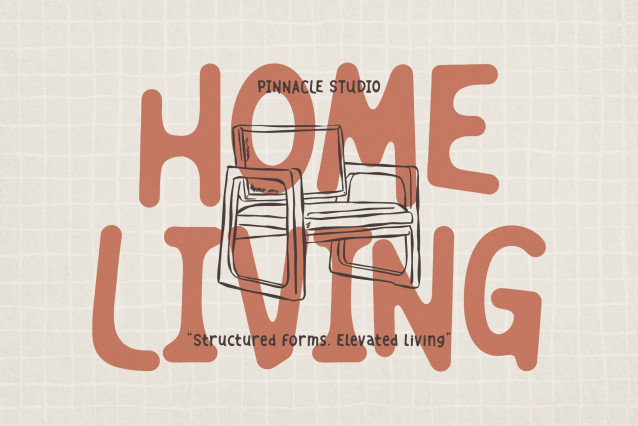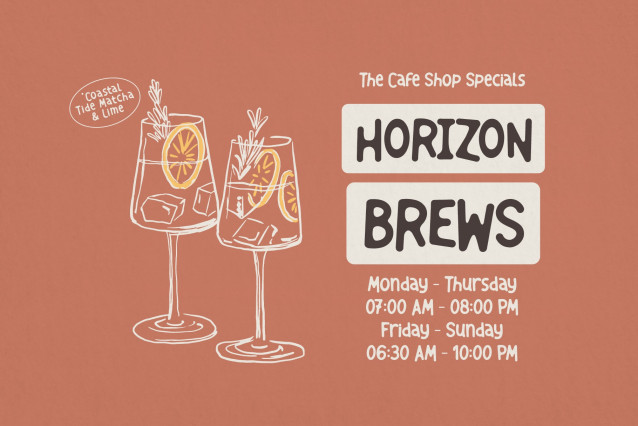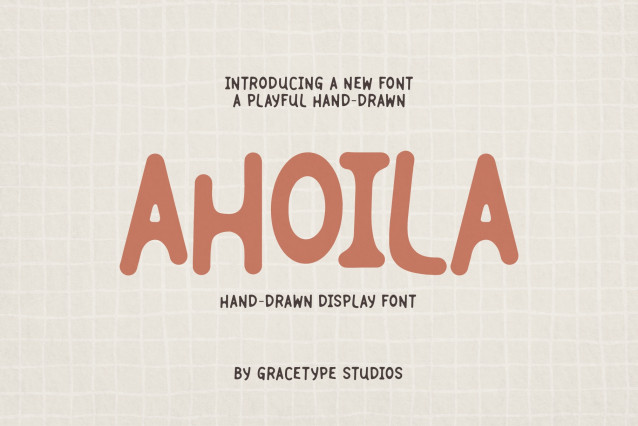
Ahoila Font
Ahoila Font | Hand Drawn Display Font, from Denustudios, suitable for any projects such as: logos, branding projects, homeware designs, product packaging, mugs, quotes, posters, shopping bags, t-shirts, book covers, name card, invitation cards, greeting cards, label, photography, watermark, special events, and all your other lovely projects that need a Hand Drawn taste.